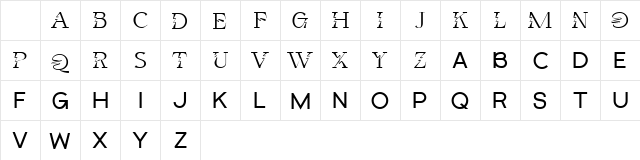
Complete noble criatura Demo Regular glyph index. Displaying only characters natively supported by noble criatura Demo Regular font.
noble criatura Demo is a composed and adaptable typeface that performs quietly and consistently across a wide range of design contexts.